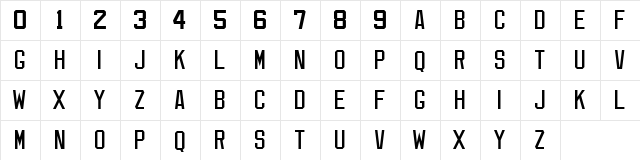
NHL New Jersey Regular
Design Context for NHL New Jersey Typeface
NHL New Jersey has the bold swagger of sports branding: strong, assertive letterforms designed to dominate headlines and jerseys alike.
Built for sports team identities, athletic apparel, event posters, and high-energy promotional material.
Font Pairing: Use alongside a condensed or geometric sans for supporting copy — keep the pairing bold, functional, and free of ornament.
Pro Tip: NHL New Jersey thrives on contrast — try it large, bold, and tight against a clean background for maximum visual impact.